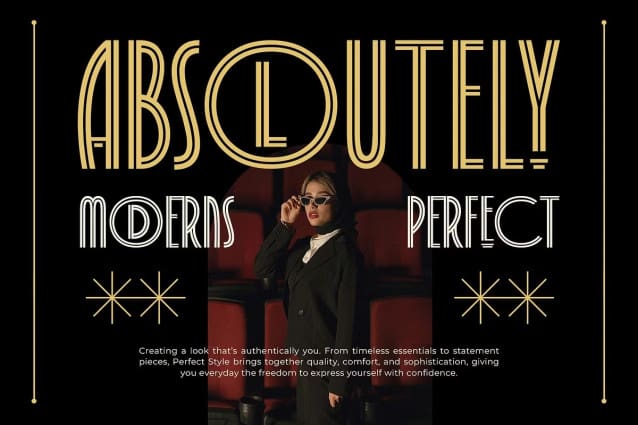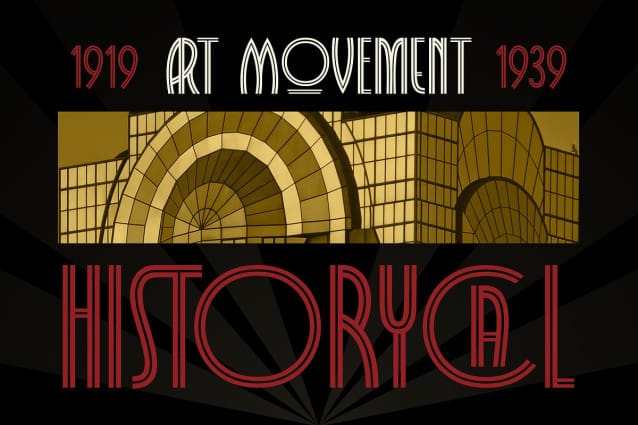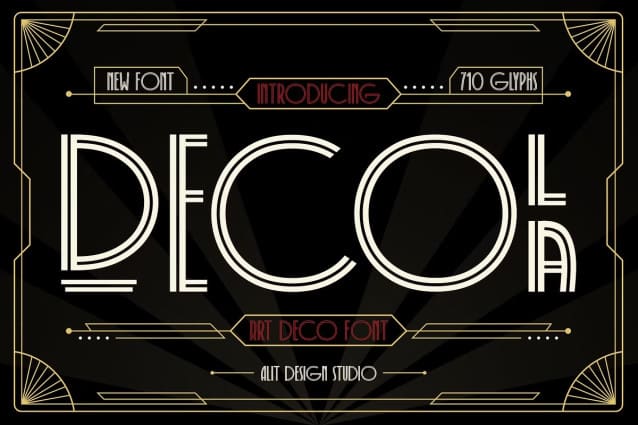
Decola Art Deco Font
Decola Art Deco Font: A stunning blend of elegance and vintage charm, inspired by the bold and lavish aesthetics of the Art Deco era. This unique font is defined by its dynamic two-line stems, creating a sense of sophistication and movement, ideal for modern designs that evoke timeless elegance.